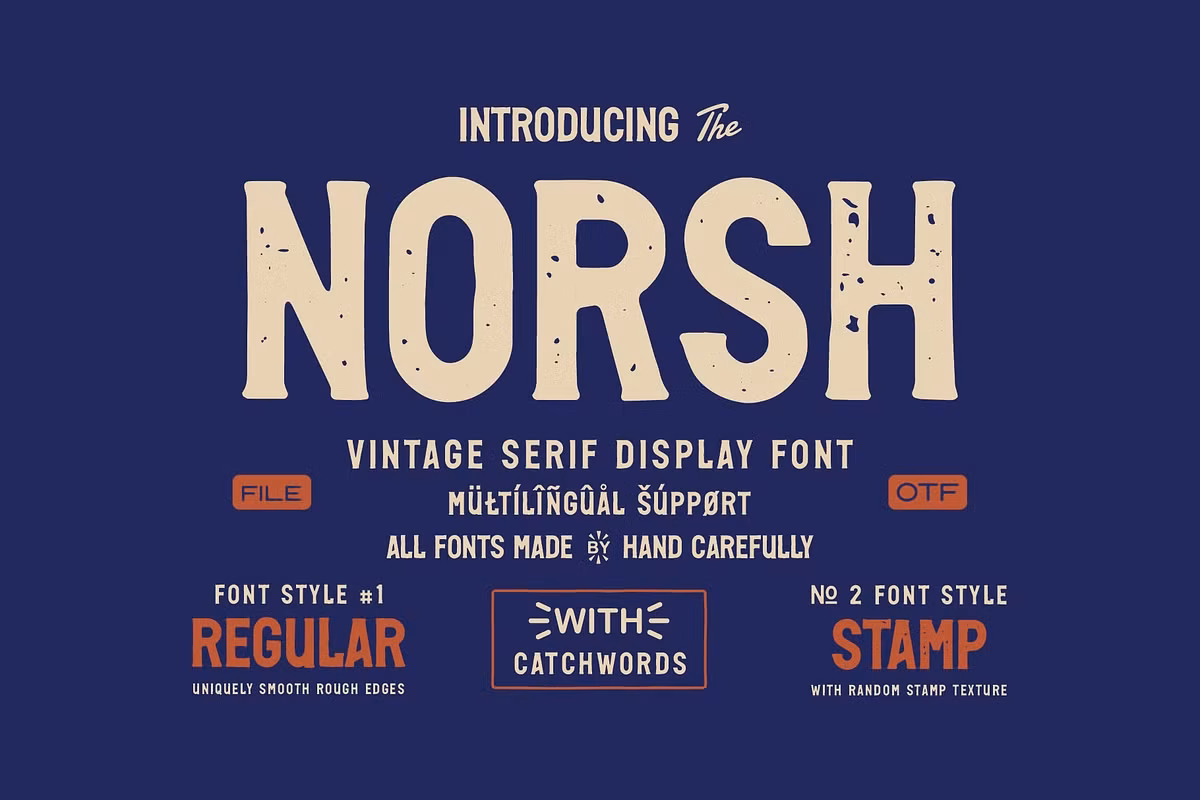
Please note that you must purchase this font for commercial use. You can download NORSH – A Vintage Display Font for free, strictly for personal testing purposes only. NORSH is a bold, retro-inspired display font with a vintage charm. Featuring strong letterforms, distinctive curves, and a classic design, NORSH Font Free Download is perfect for creating vintage logos, posters, branding, t-shirt designs, and any project that requires a retro, nostalgic aesthetic.
The font captures the essence of mid-century typography, making it ideal for projects that need a touch of the past, with a modern twist. It includes uppercase and lowercase letters, numerals, punctuation, and multilingual support, offering versatility across various creative applications.
Whether you're working on a vintage-themed brand, a retro event poster, or creating nostalgic branding, NORSH adds bold, timeless appeal to your typography.